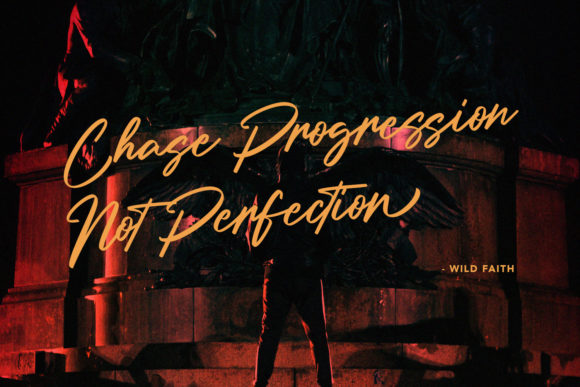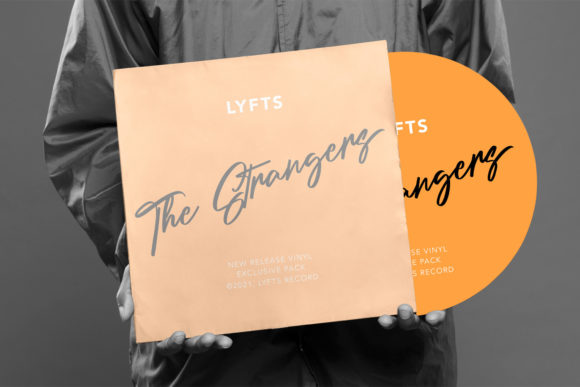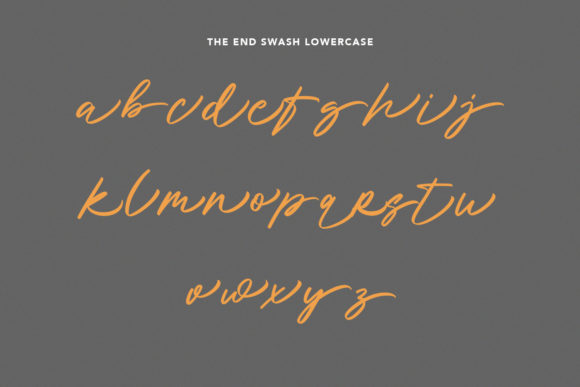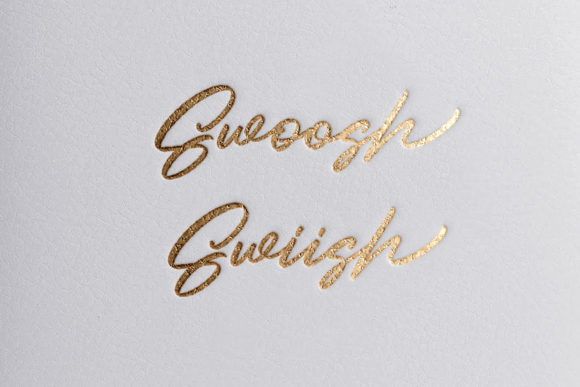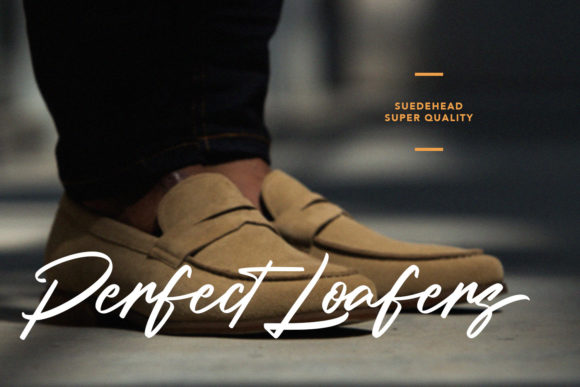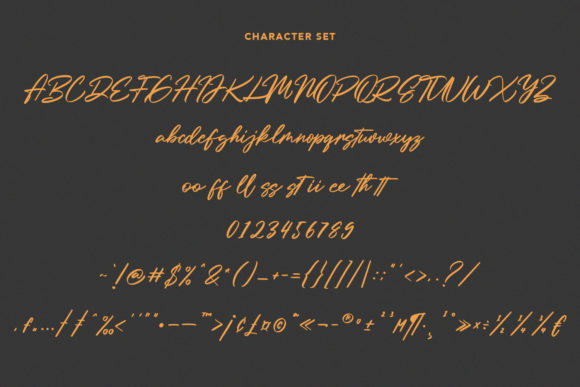
Introduction to Holly Wings Font
There’s something magical about holding a beautifully crafted wedding invitation or a heartfelt thank you card, isn’t there? The way the words dance across the page, the delicate curves of the letters, it’s a sensory experience that never gets old. As a designer, you know the importance of choosing the right font to elevate your creative project and make it truly special.
That’s where Holly Wings Font comes in – a stunning paint brushed script font that adds a touch of elegance and sophistication to any design. With its bold and fashionable style, Holly Wings Font is the perfect choice for designers looking to give their projects a high-quality, personalized look.
- Features a unique, elegant design with a festive holiday theme
Honest Review: Holly Wings Font
I recently came across the Holly Wings Font and I must say, I was quite impressed. As a designer, I’m always on the lookout for high-quality design resources to elevate my creative projects.
Here’s what works well: ✨ The font is incredibly versatile and can be used for a wide range of applications, from branding to editorial content. The design is modern, yet elegant, making it perfect for creative projects that require a touch of sophistication. The font also comes with a transparent background, which is a huge plus for designers who value flexibility.
However, there are a few limitations to consider: ⚠️ The font may not be suitable for all types of projects, particularly those that require a more playful or whimsical feel. Additionally, the font family is relatively small, which may limit its versatility in certain contexts.
Overall, I’m quite impressed with the Holly Wings Font. Its high quality, versatility, and free availability make it an excellent addition to any designer’s toolkit.
- High-quality design with crisp lines and smooth texture
- Modern, yet elegant design suitable for branding and editorial content
- Transparent background for flexibility
- May not be suitable for playful or whimsical projects
- Relatively small font family
Holly Wings Font is perfect for a variety of creative projects, including wedding invitations, business cards, and social media graphics. Its elegant and sophisticated design makes it ideal for any project where a touch of class is needed.